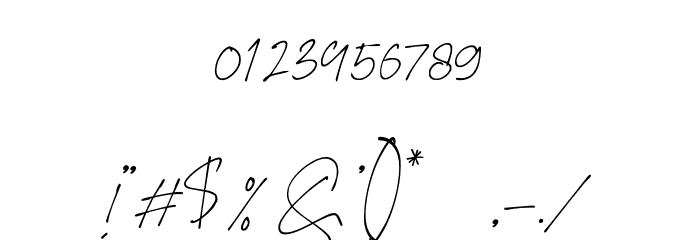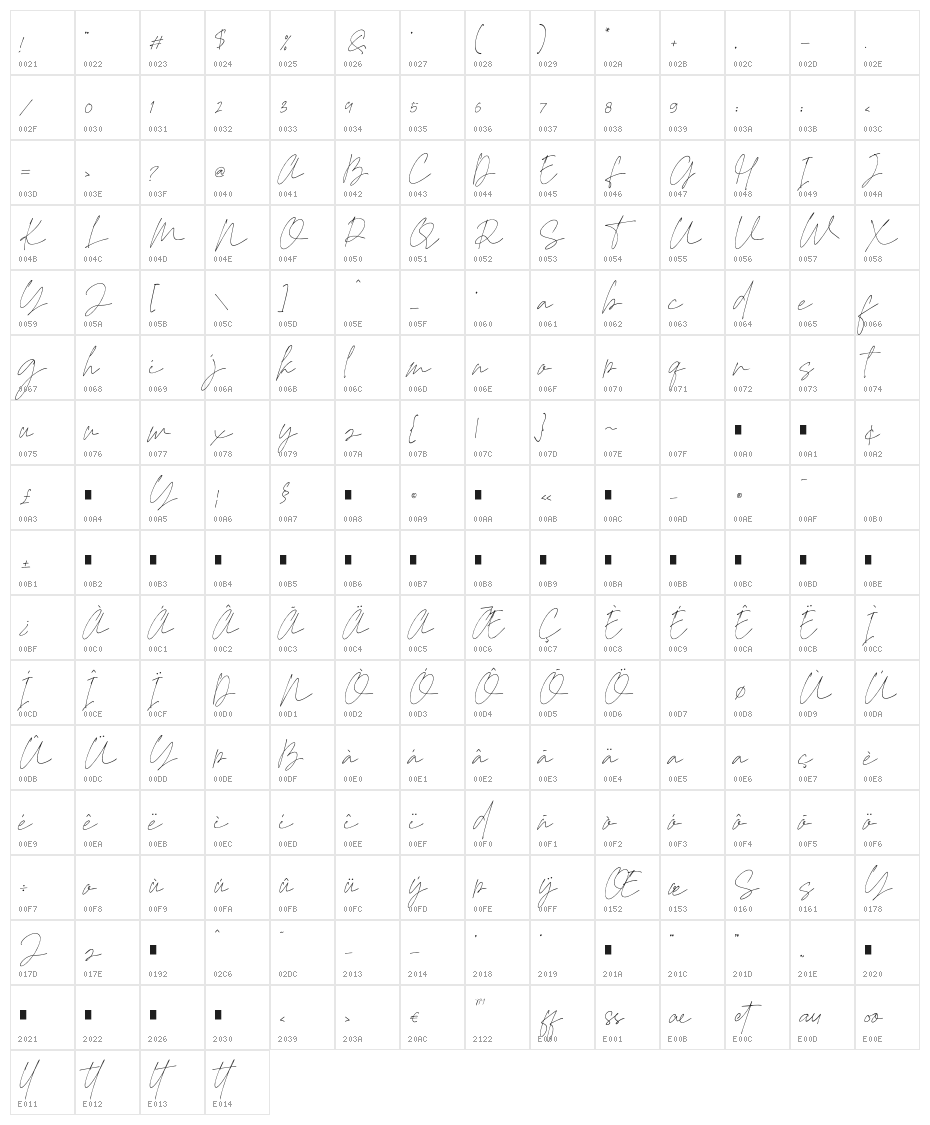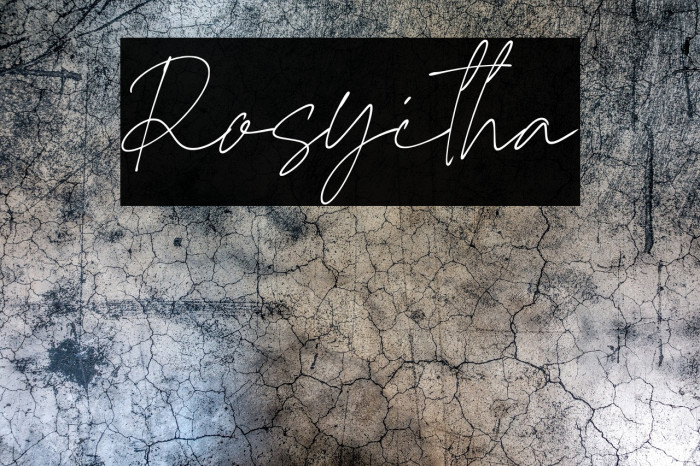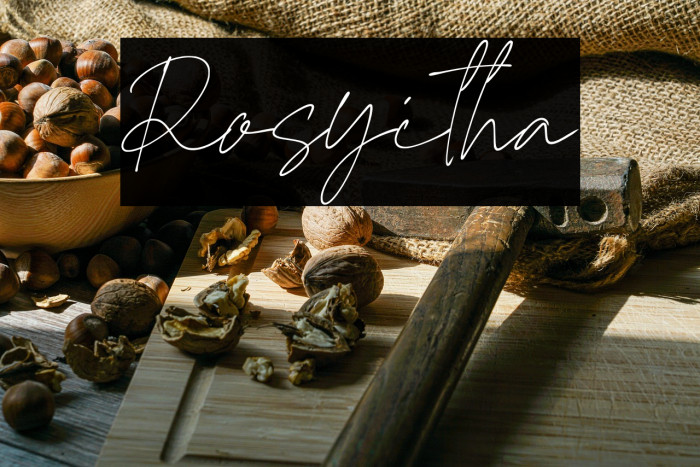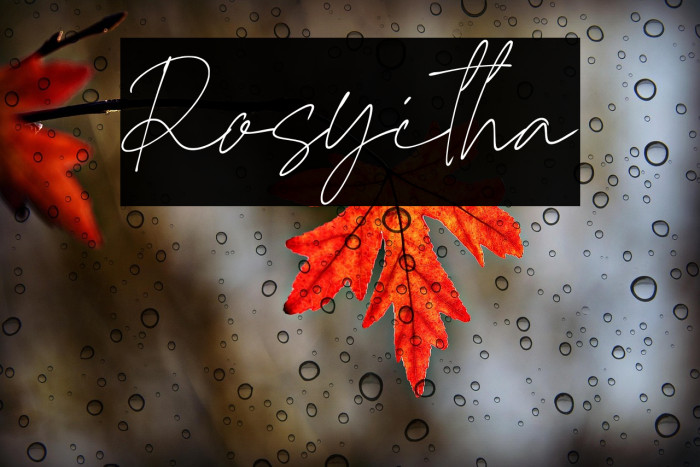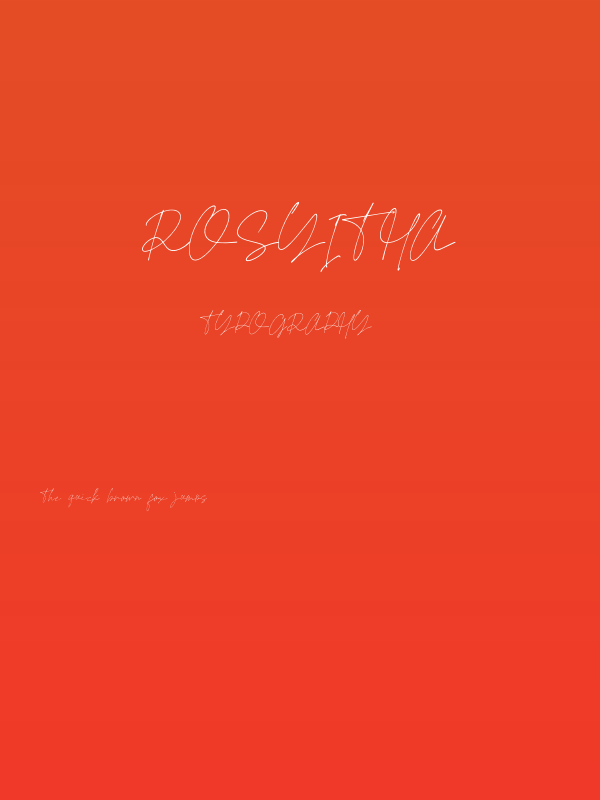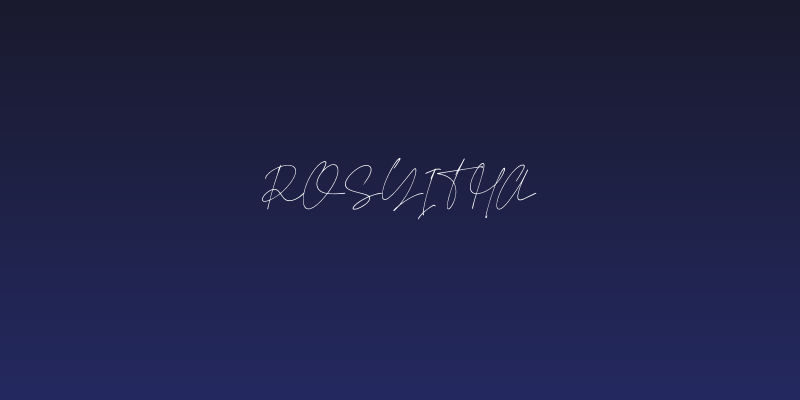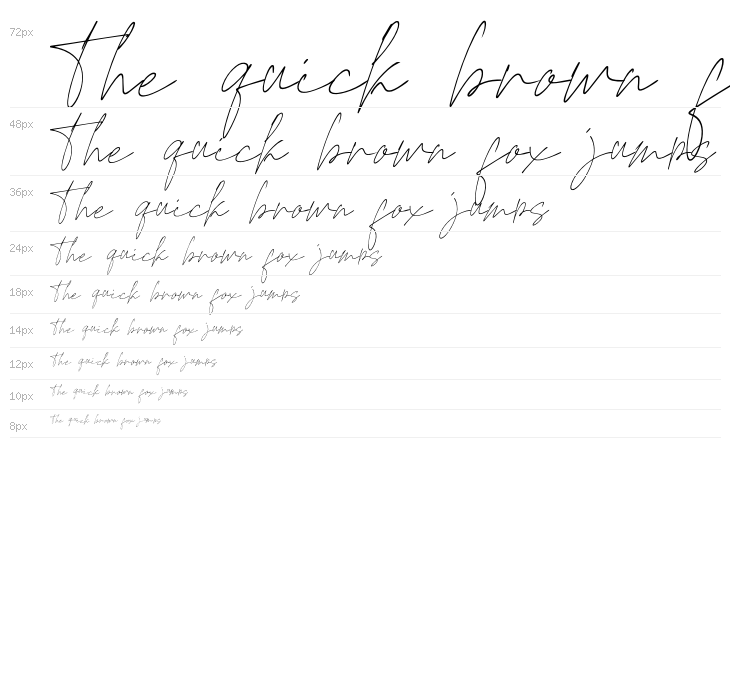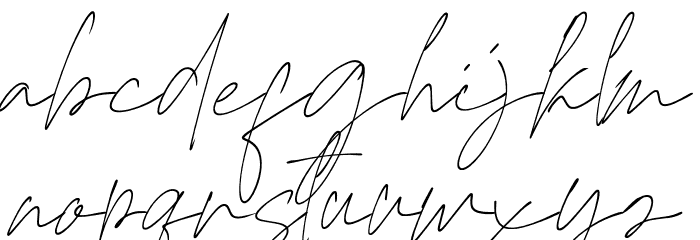
Rosyitha Font
Rosyitha Description
This font exudes a casual, handwritten style with a flowing, cursive script that mimics natural handwriting. The letters are connected, creating a seamless and elegant appearance. The strokes are thin and delicate, giving it a light and airy feel. The uppercase letters maintain a consistent height, while the lowercase letters feature varying heights and loops, adding to its charm. Numbers and special characters follow the same fluid style, ensuring a cohesive look across all text. This font is perfect for projects that require a personal touch, such as invitations, greeting cards, or branding materials.
| Overall Style | Casual, Elegant |
| Proposed Projects | Ideal for wedding invitations, personal branding, greeting cards, and creative projects requiring a personal touch. |